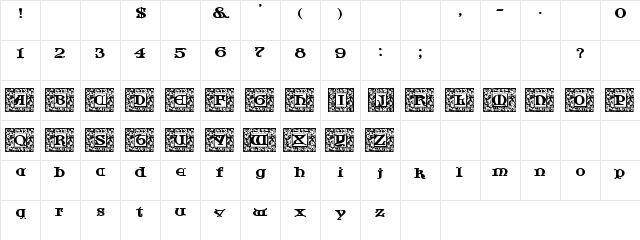
JF Cotswold Leaves Regular
Design Context for JF Cotswold Leaves
JF Cotswold Leaves is a composed and adaptable typeface that performs quietly and consistently across a wide range of design contexts.